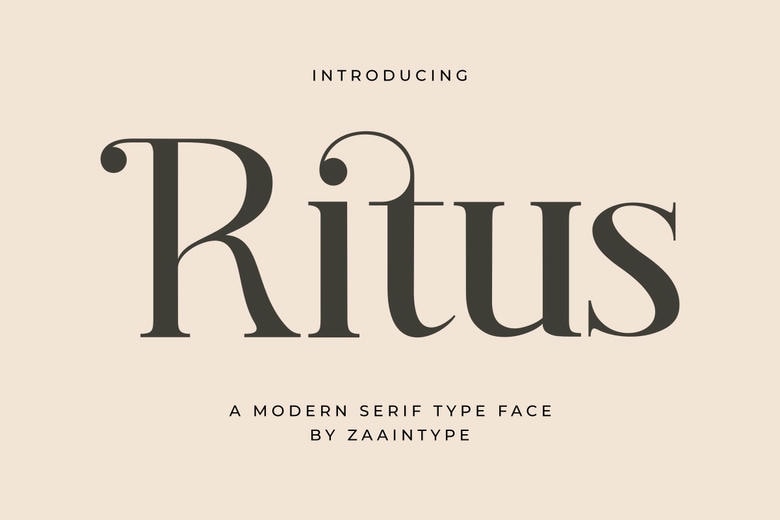
Ritus Font
Ritus is a serif-type font designed to add a touch of classic elegance and luxury to any design project. With its refined details and balanced letter proportions, Ritus is ideal for branding, editorial, product packaging and invitations.
This font has a strong, yet graceful character and provides a formal and professional impression with an artsy touch. Elevate the visual appeal of your designs with Ritus and give a harmonious blend of traditional beauty and modern functionality
Ritus Serif Font